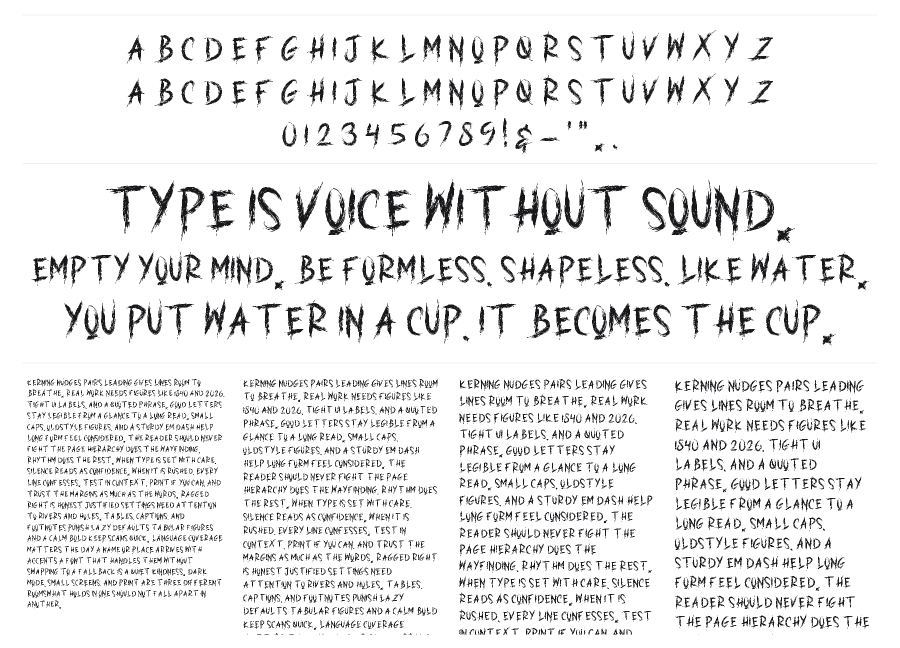
Hard Street
Hard Street is a distressed all-caps display face built on raw, scraped strokes that look like they were dragged across a rough surface. Every character carries visible wear: splintered terminals, eroded edges, and irregular outlines that make the type feel physically damaged. It belongs on concert posters, horror titles, and anything that needs an unapologetically gritty edge.